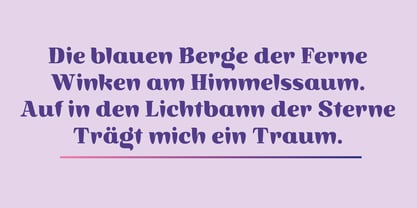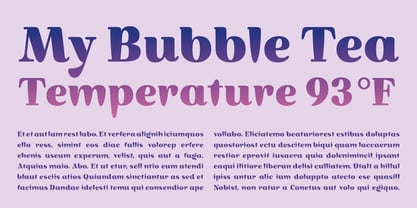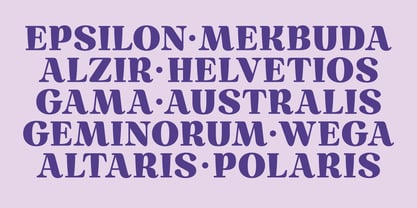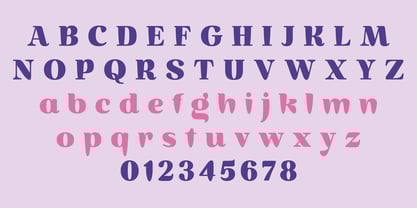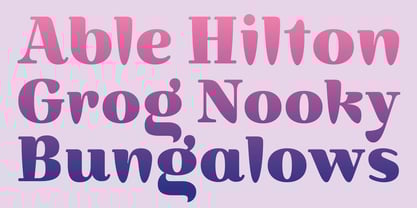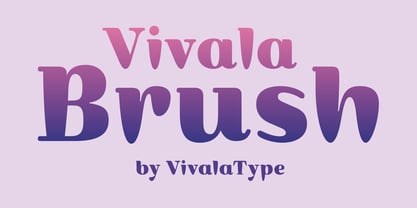
Vivala Brush
by Johannes Hoffmann
The Vivala Brush Font Family was designed by Johannes Hoffmann and published by Johannes Hoffmann. Vivala Brush contains 1 styles.
Vivala Brush Font is a bold, rounded display typeface that embodies a playful, hand-painted aesthetic. Featuring thick strokes and soft serifs, it exudes unique charm, reminiscent of artistic floral brushstrokes. Despite its whimsical brushstroke feel, this font ensures high legibility. Ideal for various applications such as posters, packaging, and corporate designs, Vivala Brush Font strikes a balance between friendliness and impact, providing designers with a versatile and creative option for impactful branding, web content, and editorial projects.
About Johannes Hoffmann
Johannes Hoffmann is a type designer based in Düsseldorf with a background in creative direction and innovation management. His typefaces are characterized by extensive language support and a wide range of OpenType features. In addition to retail fonts, he creates custom typefaces for global campaigns and packaging design, combining technical precision with a strong sense of branding.